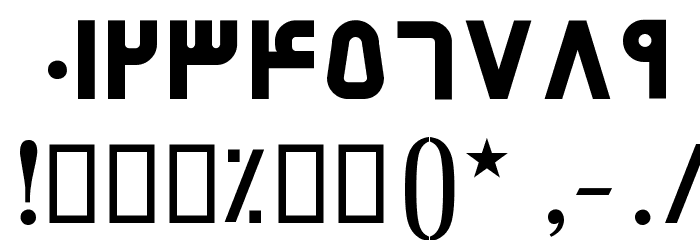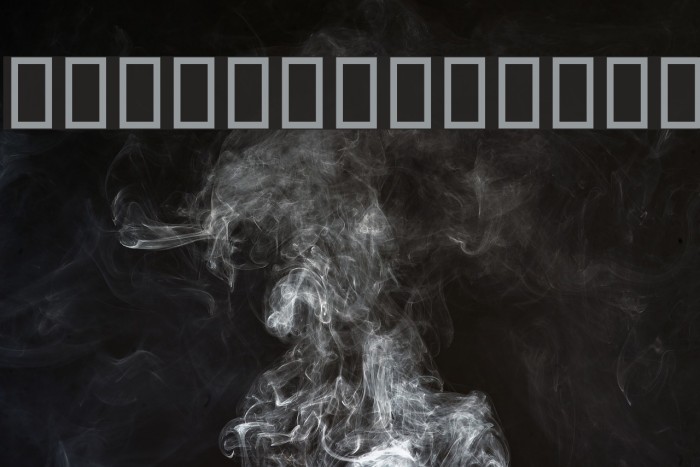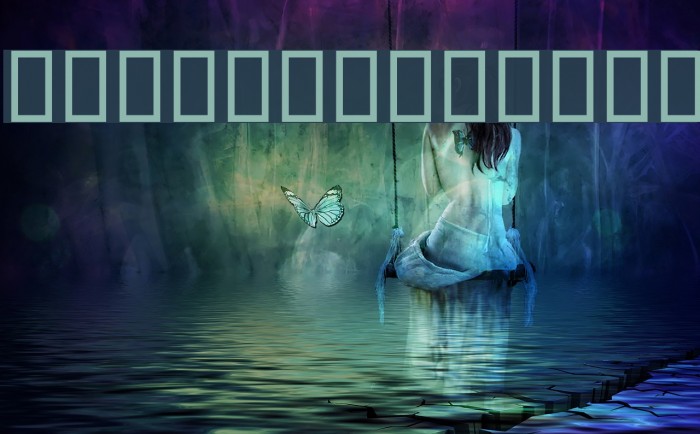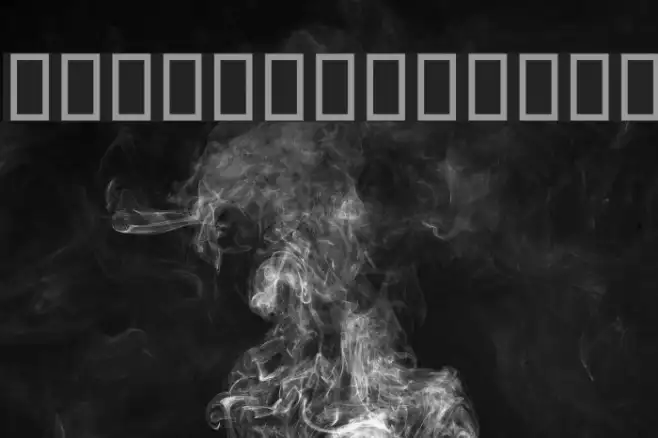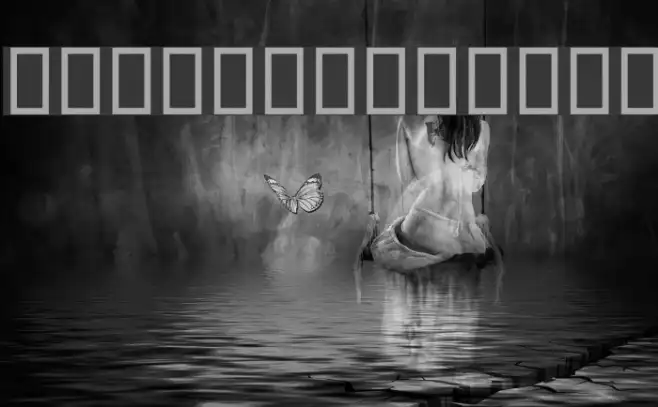
Decor Font
This font features a bold and striking design with thick, uniform strokes that create a strong visual impact. The characters are well-defined with a modern aesthetic, making it suitable for attention-grabbing headlines or titles. The numbers and special characters maintain the same boldness, ensuring consistency across different uses. The overall style is clean and contemporary, with a slight geometric influence visible in the uniformity of the letterforms.
A bold, modern font with thick, uniform strokes and a clean, geometric style.
- Proposed Projects: Ideal for branding, advertising, posters, and any project requiring a strong visual presence.